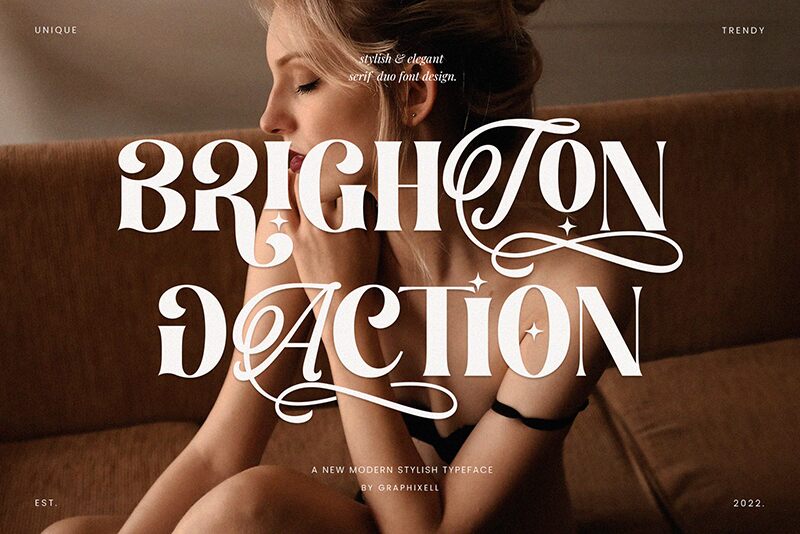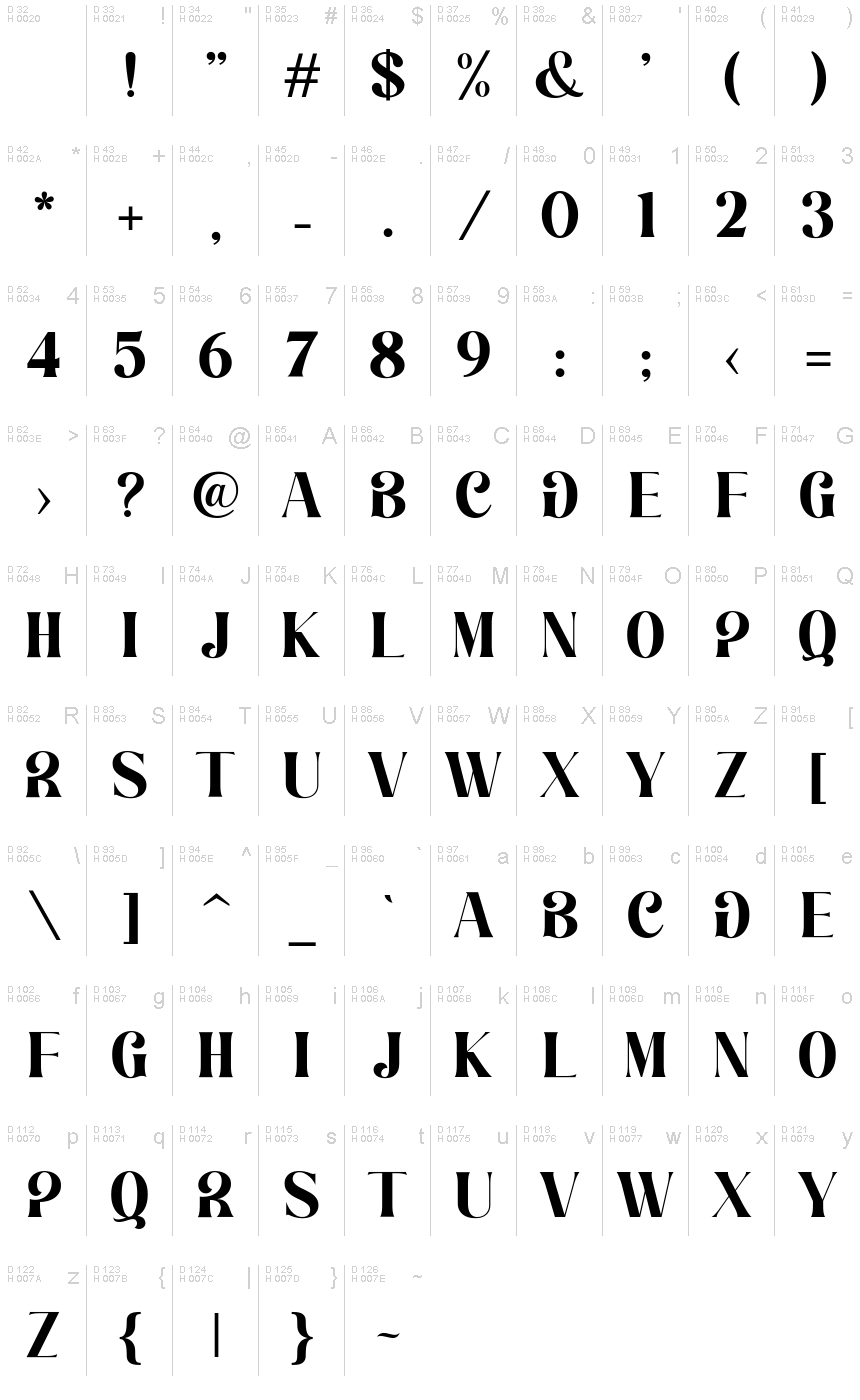
Brighton Daction Regular
Introducing Brighton Daction, a captivating display font designed by Graphicxell. This bold and retro-inspired typeface exudes a sense of vintage charm and timeless elegance. With its distinct letterforms and striking visual presence, Brighton Daction commands attention, making it a standout choice for various design applications.
The font's bold weight and confident strokes convey a sense of strength and authority, while the retro-inspired styling evokes a nostalgic and atmospheric ambiance. Brighton Daction's distinctive character and alluring aesthetic make it an excellent choice for headlines, logos, and branding, where a bold and impactful typographic statement is desired.